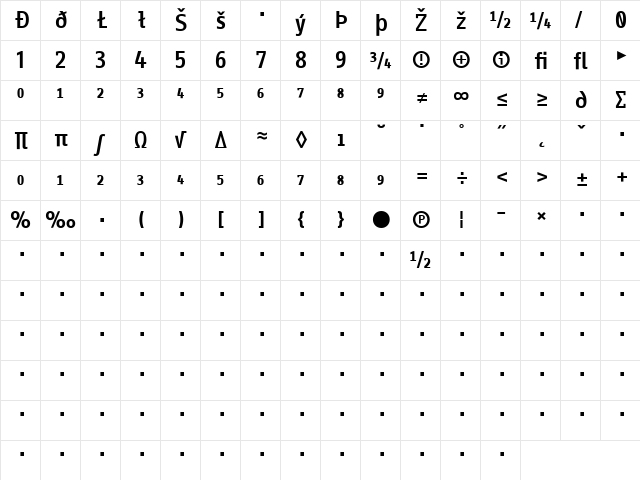
InfoOffice Bold
Design Context for InfoOffice Typeface
InfoOffice takes a measured approach to typography — its balanced proportions and neutral character make it a reliable workhorse for both digital and print work. Its bold stroke weight gives it real presence on the page.